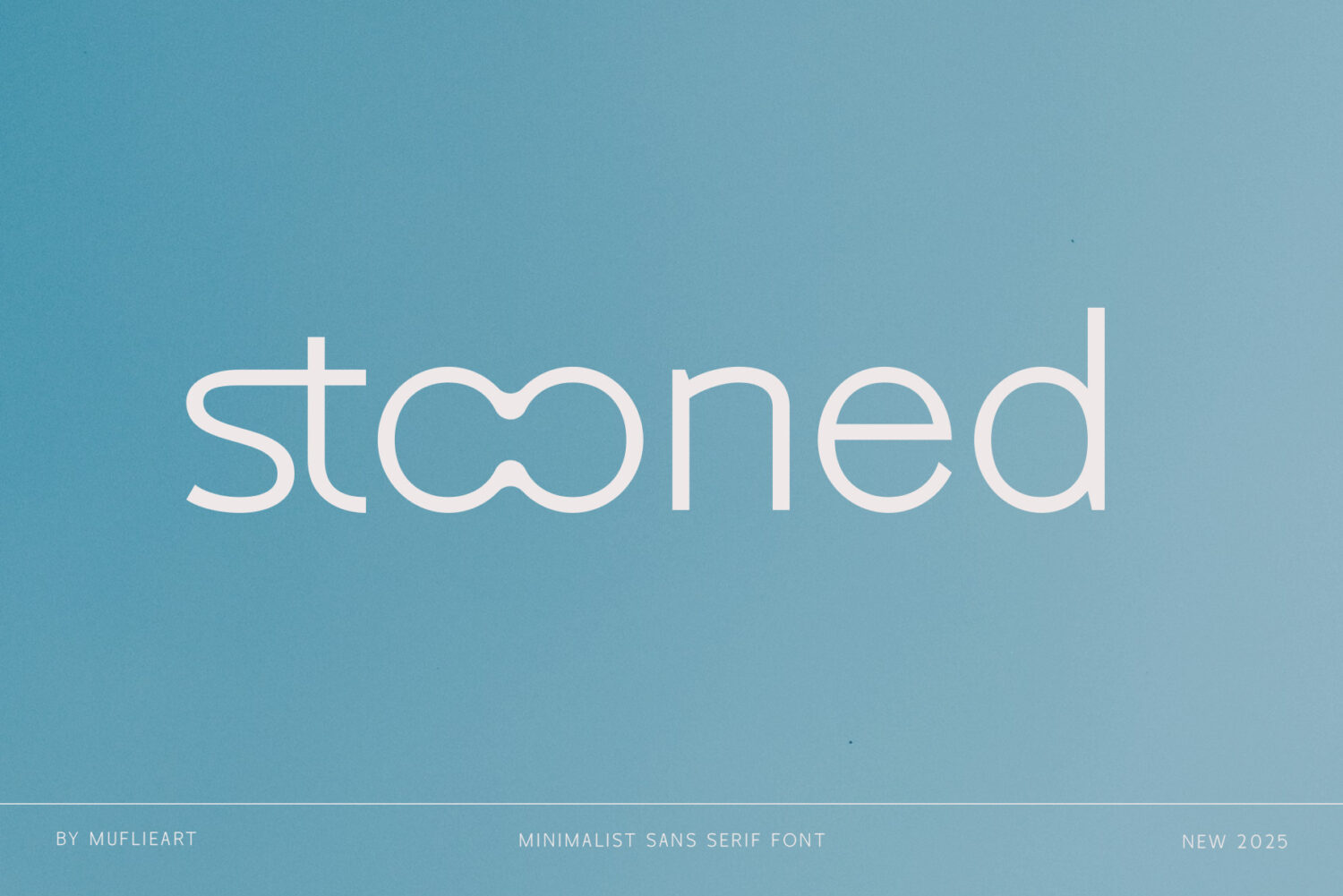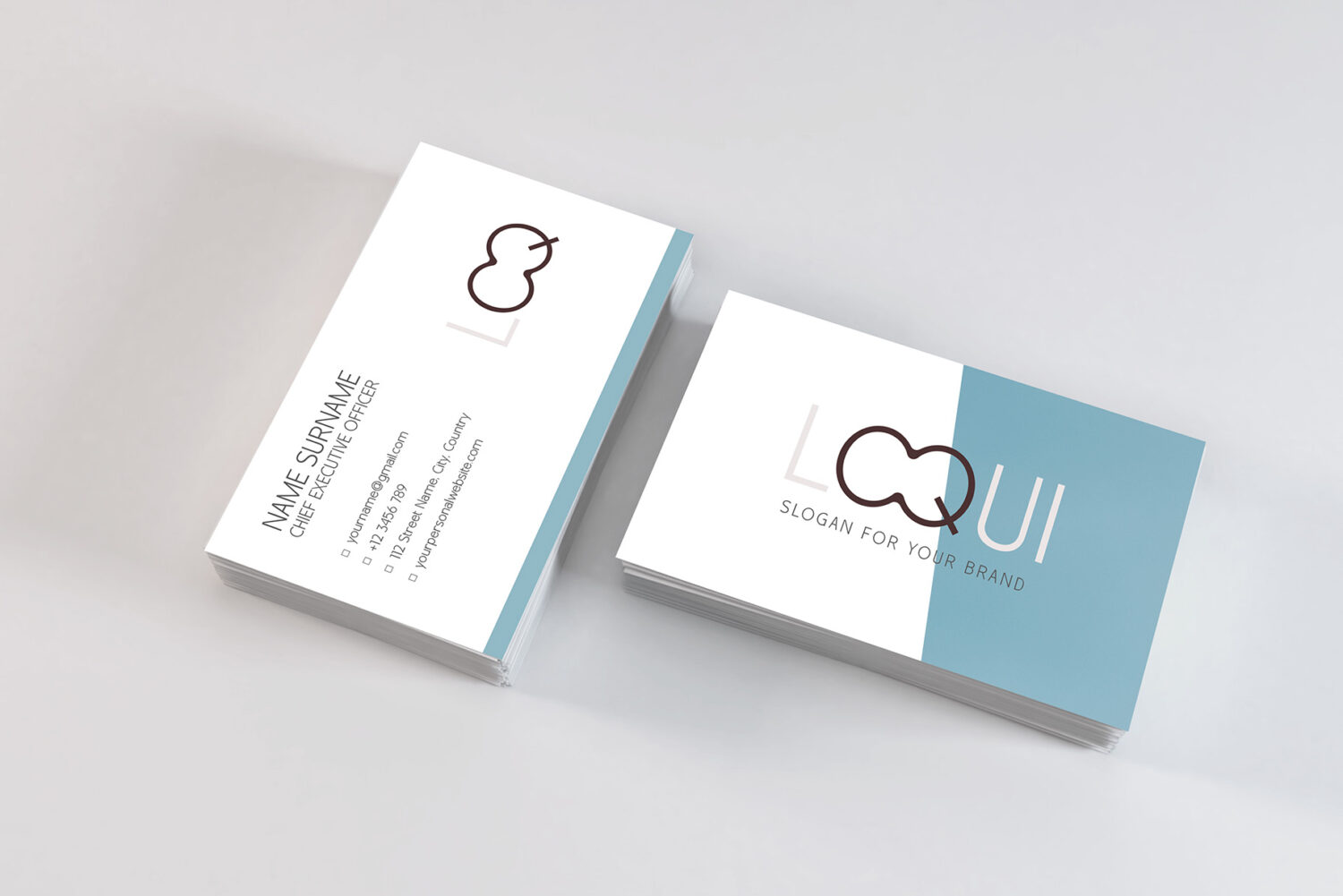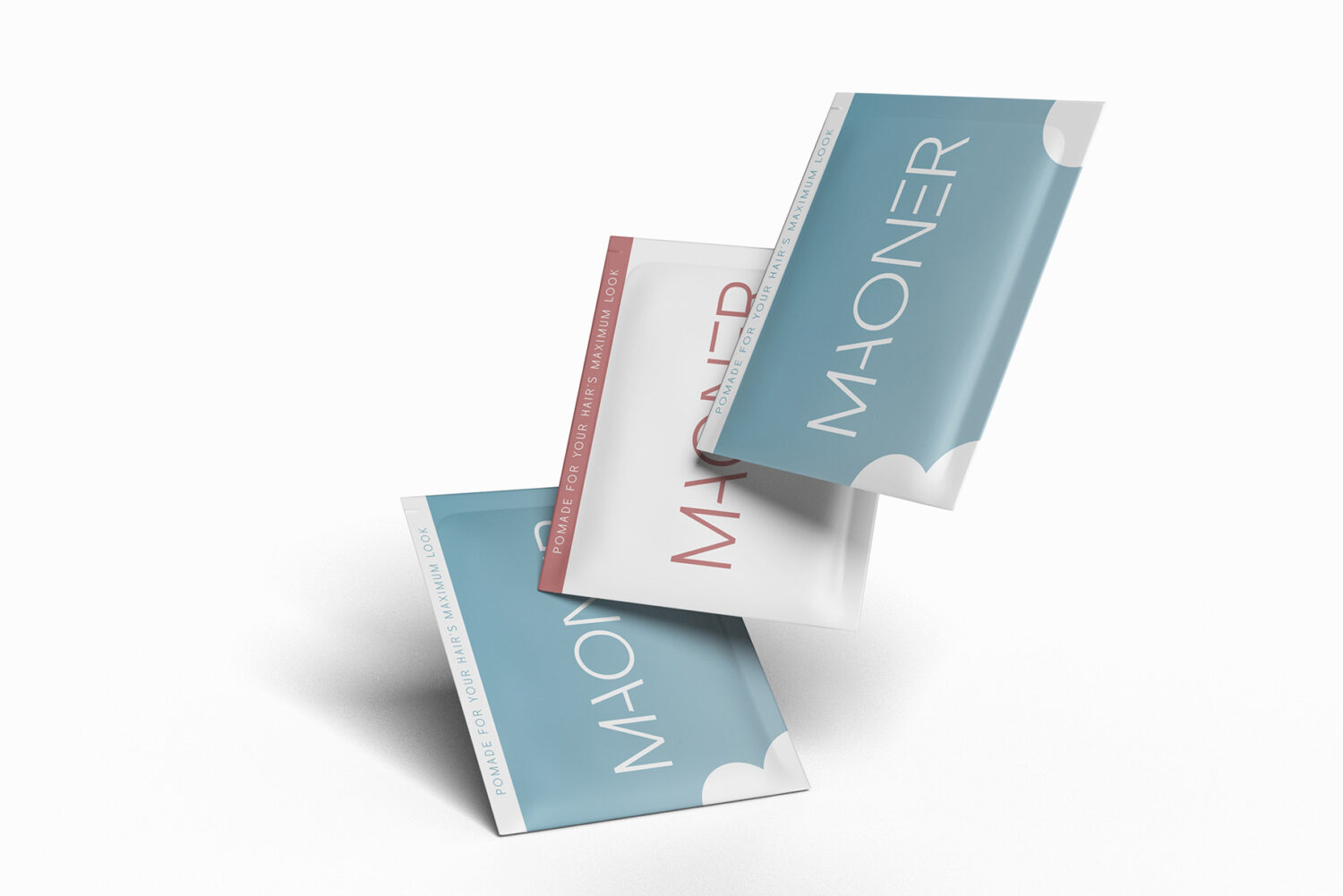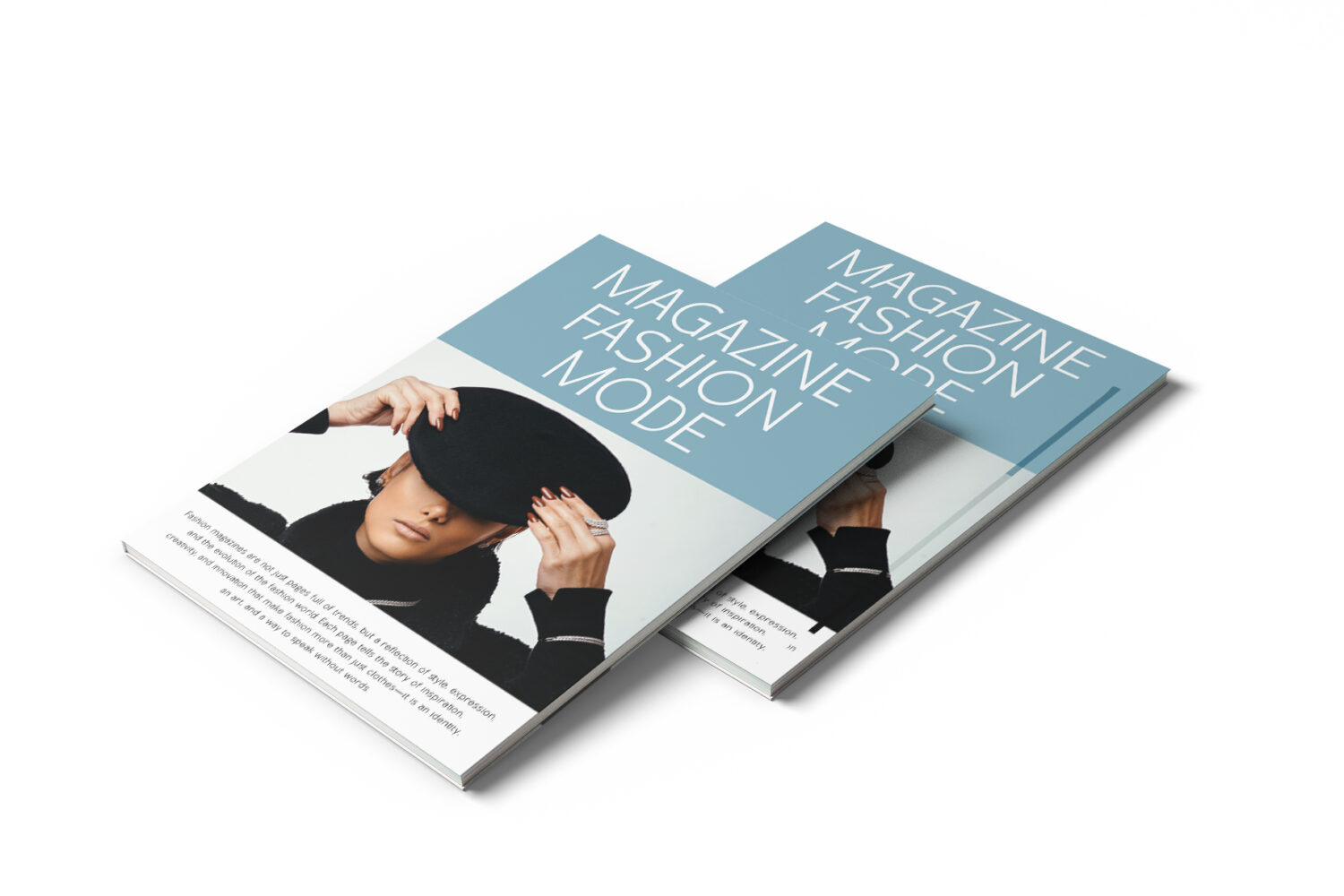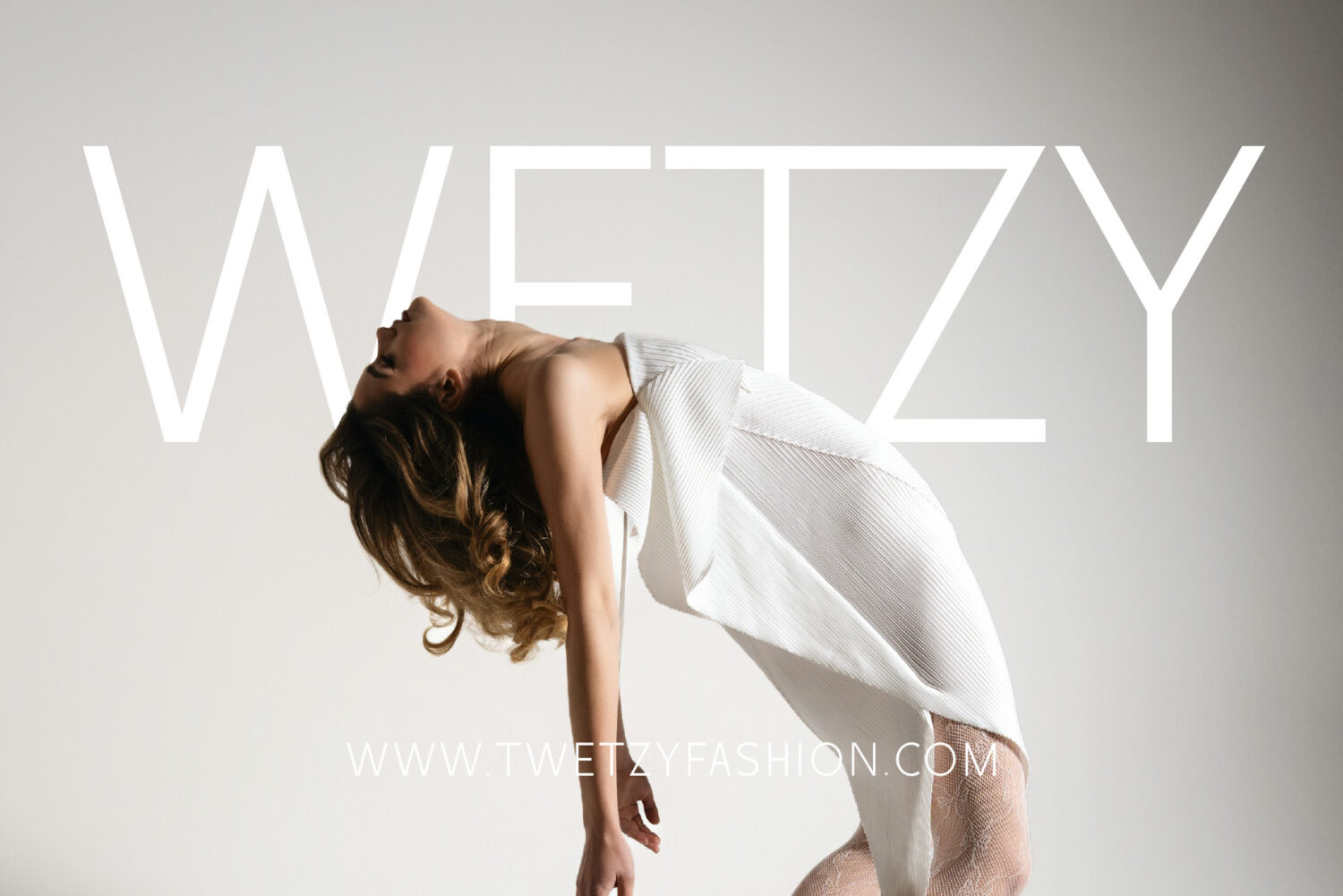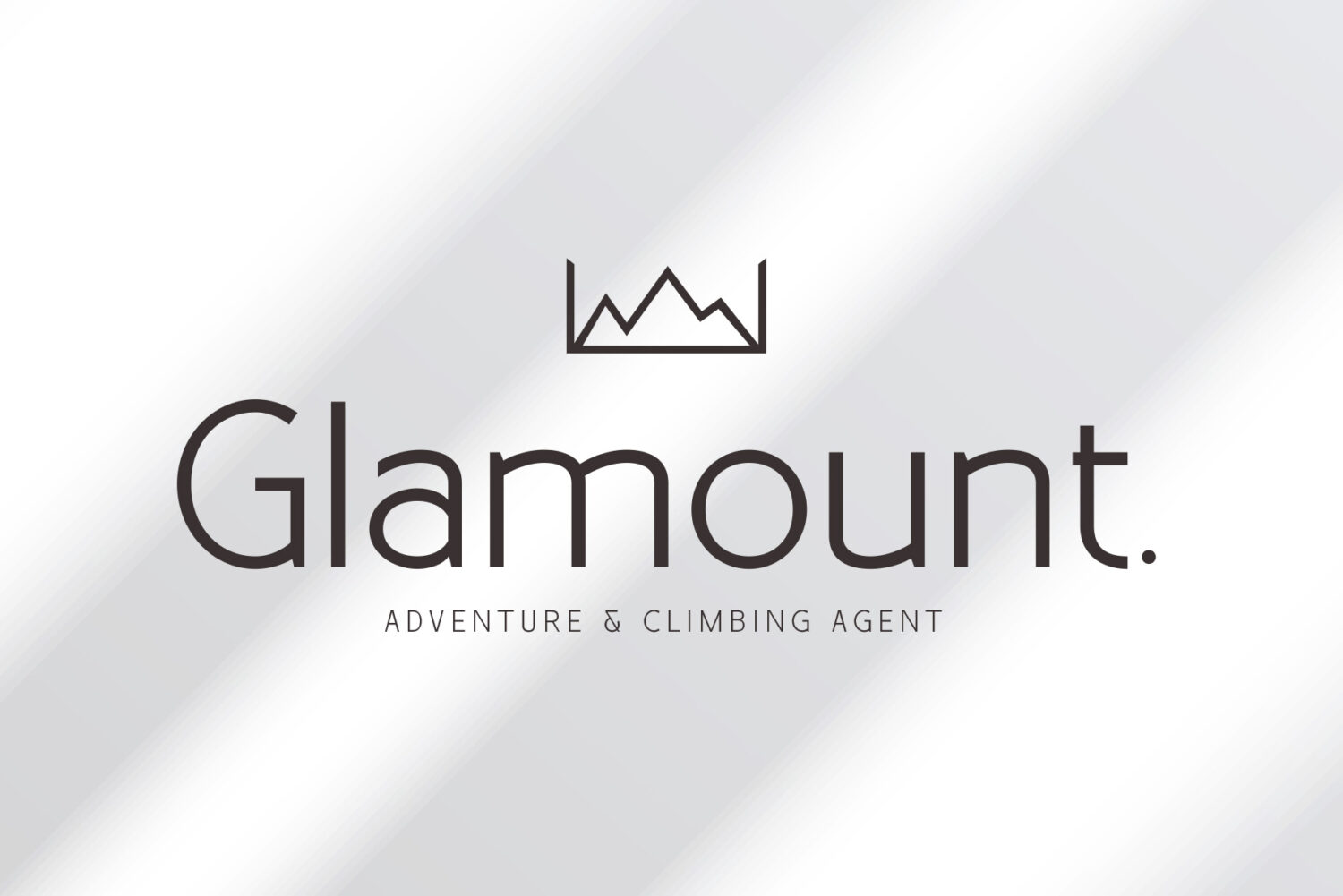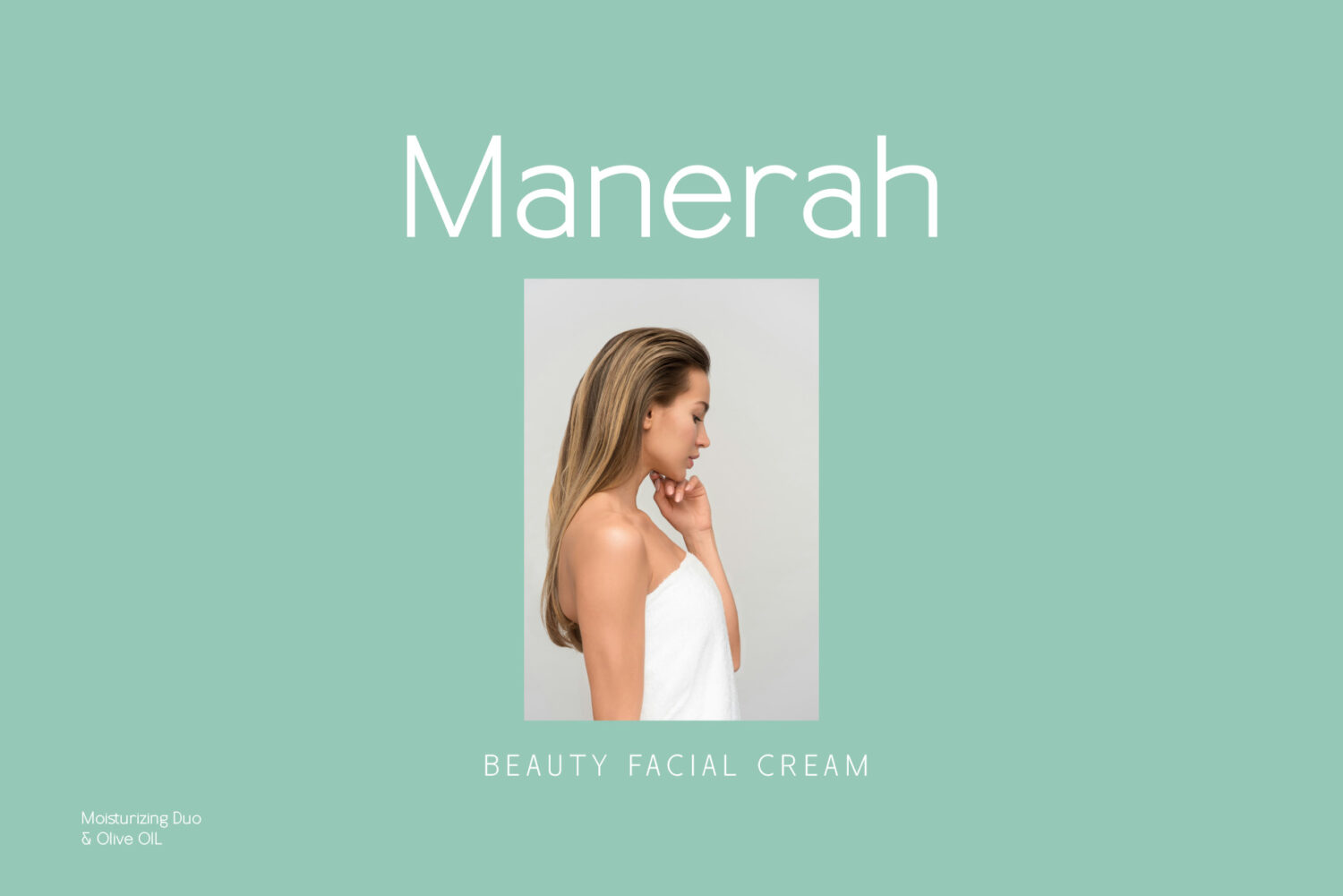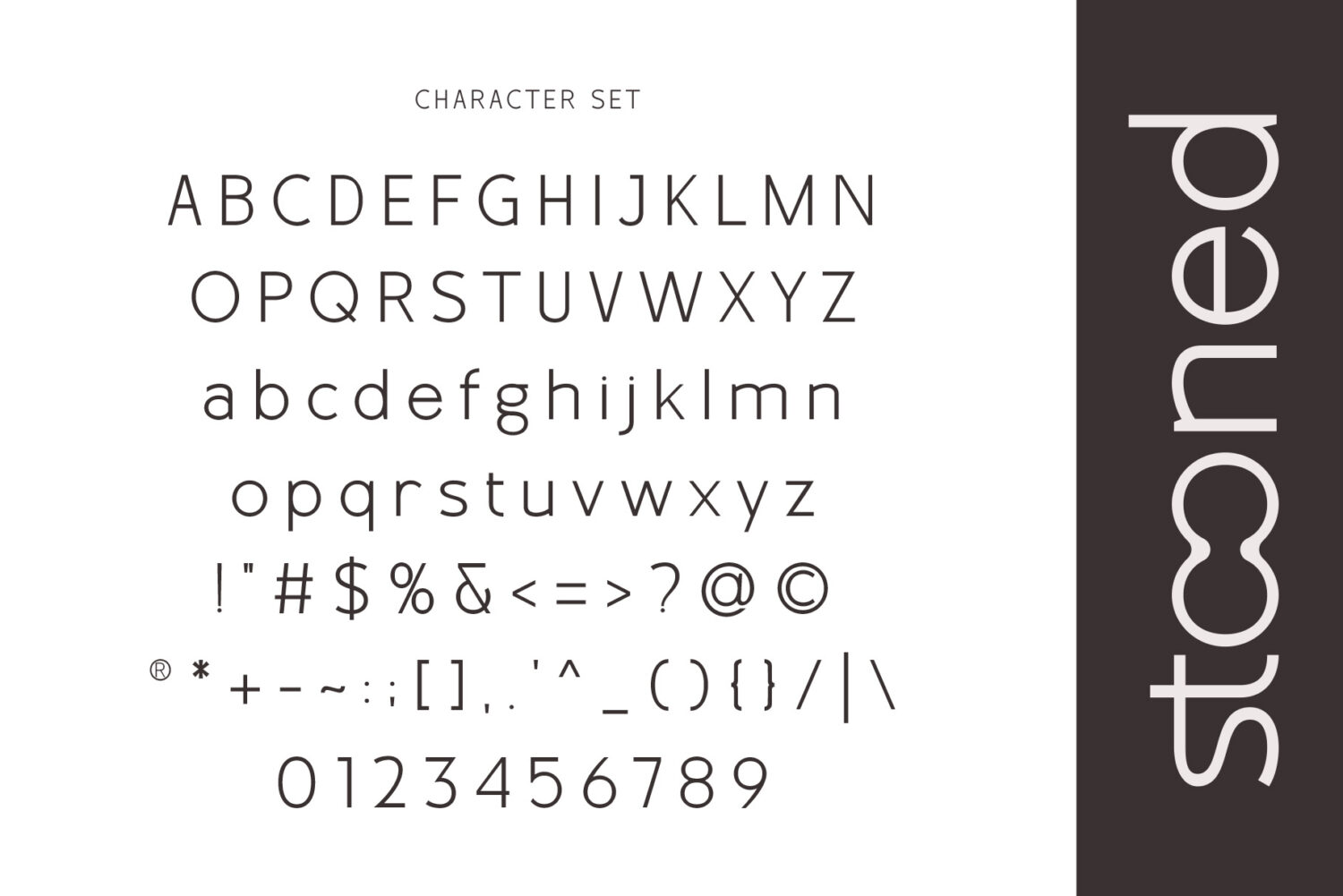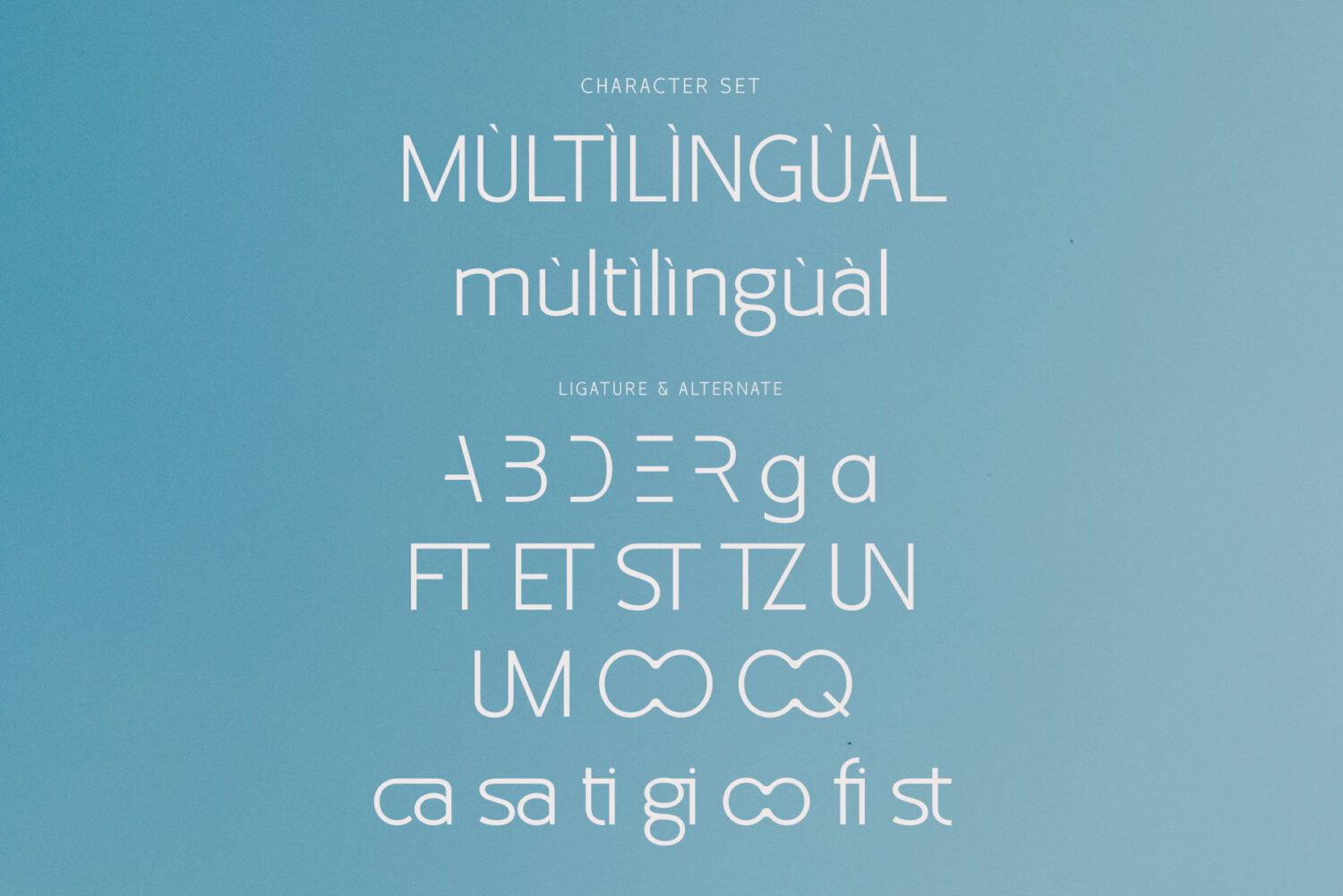
**Stooned** font is a meticulously crafted typeface designed specifically for logos, branding, headers, and titling. With precise kerning and spacing tailored for impactful logos and branding materials, Stooned Font ensures your designs make a lasting impression. Please note, **Stooned** font is not suitable for body text, but excels in visual applications where every detail matters. Elevate your design projects with **Stooned** Font today.
**Features**:
*Standar character A-Z and a-z
*Numberial and Functional
*Multilinggual Character support